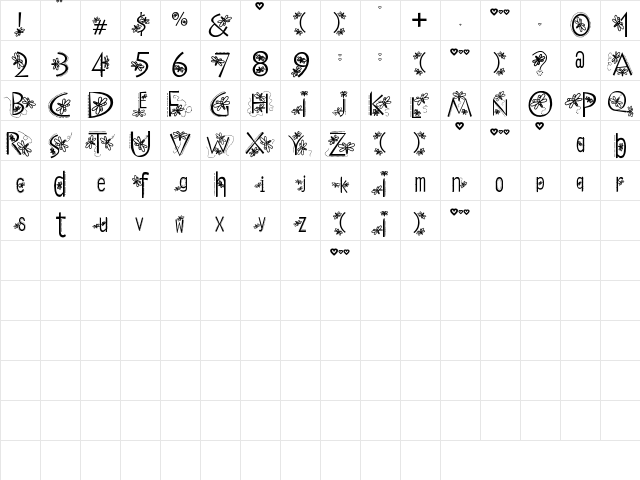
A'sDragonflyDance Regular
Design Context for A'sDragonflyDance
A'sDragonflyDance is a composed and adaptable typeface that performs quietly and consistently across a wide range of design contexts.